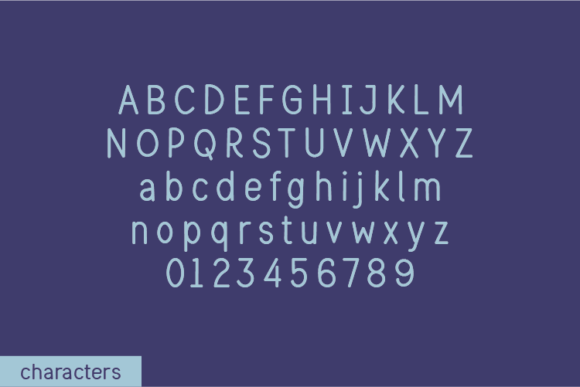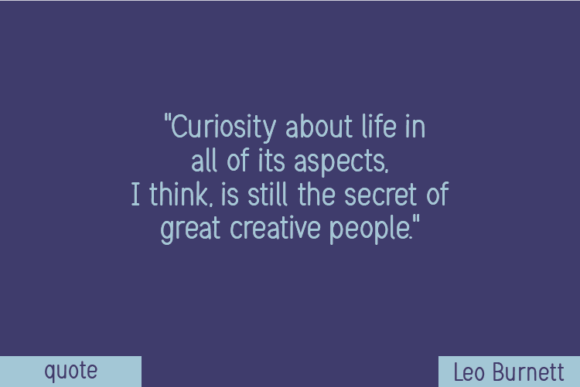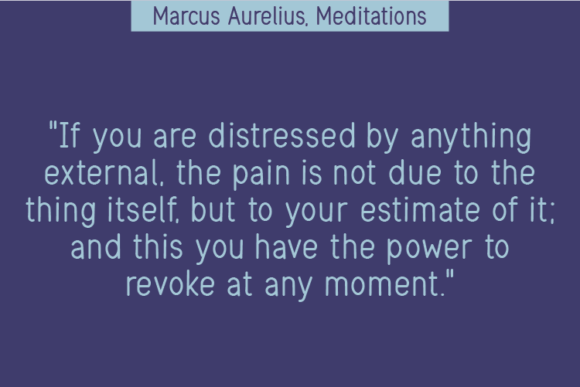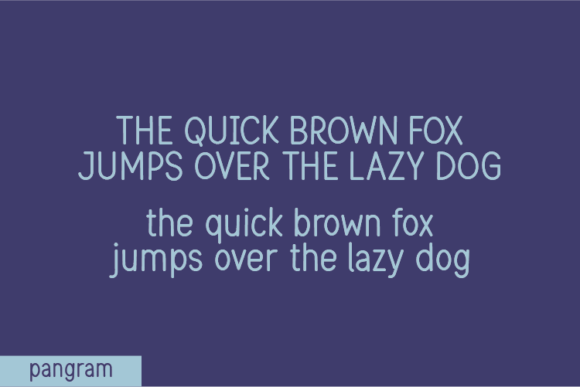
About Molecular Font
Molecular Font Download introduces a natural handwritten typeface designed without altering a single node in its letterforms. This attention to detail makes it a truly authentic and unique font, capturing the imperfect yet beautiful rhythm of real handwriting.
Its raw and organic look makes it ideal for creative projects where individuality is essential. The natural strokes give text a handcrafted personality, ensuring your designs stand out with originality and warmth.
Key Features
Unique handwritten style with authentic flow
Designed without altering character nodes
Full set of letters, numbers, and symbols
Perfect For
Quotes and sayings with personality
Notes and journals that feel authentic
T-shirts and apparel with a hand-drawn look
Product packaging and labels with unique charm
Invitations, cards, and stationery
Molecular’s handcrafted essence makes it highly versatile across both print and digital projects. It blends authenticity with usability, making it a favorite choice for designers who want a handwritten script that feels natural and memorable.